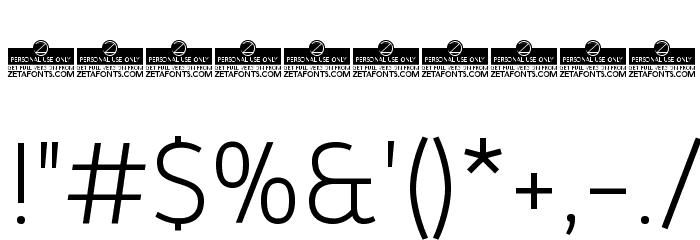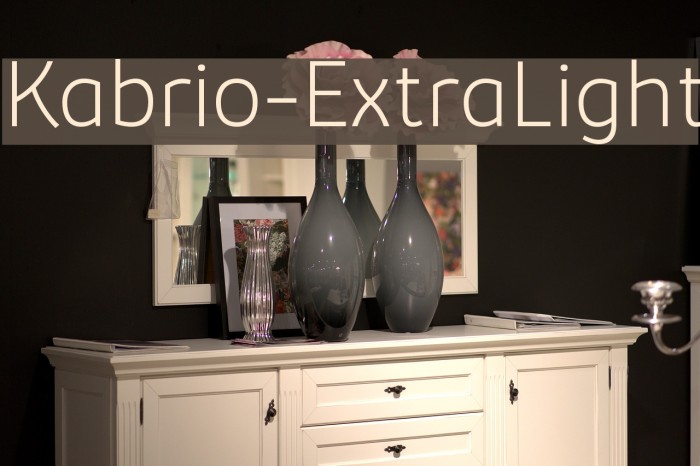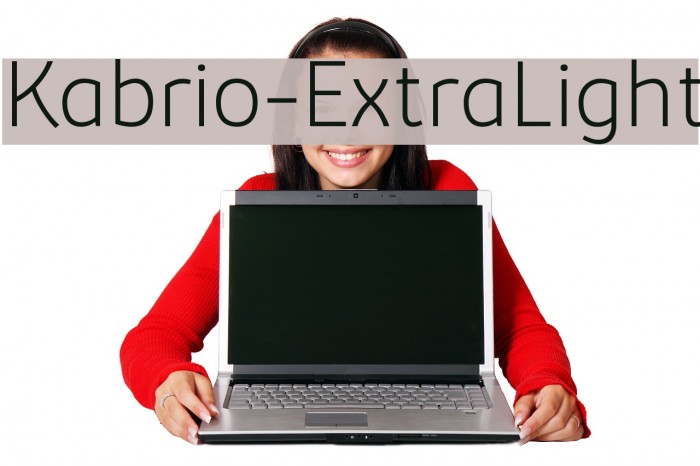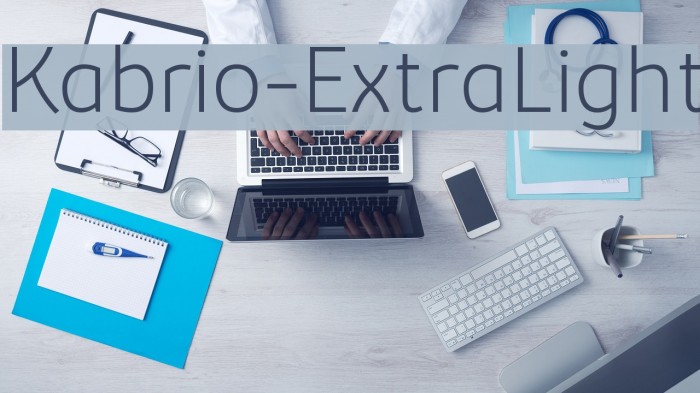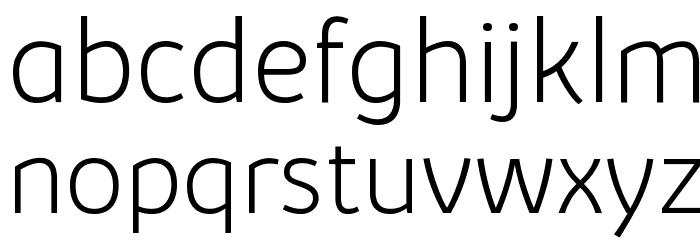
Kabrio-ExtraLight Font
Kabrio-ExtraLight Description
This typeface exhibits a clean and modern aesthetic with its extra light weight, offering a sleek and minimalist appearance. The characters are well-proportioned with a geometric influence, providing a sense of balance and harmony. The uppercase and lowercase letters maintain a consistent stroke width, contributing to its uniform look. The font's simplicity and clarity make it highly legible, even at smaller sizes. Its design is versatile, suitable for a variety of digital and print applications, and it includes a comprehensive set of special characters and punctuation marks.
| Use Case | Headlines, Body text, Logos |
| Proposed Projects | Ideal for branding, web design, editorial layouts, and minimalist graphic design projects. |